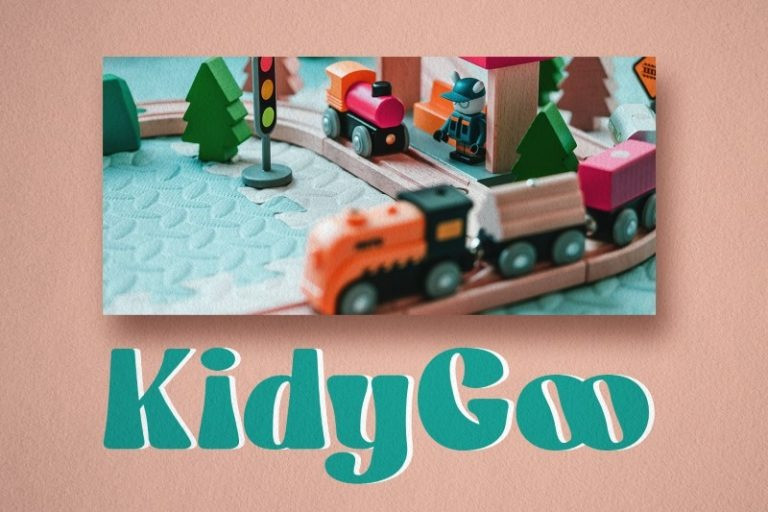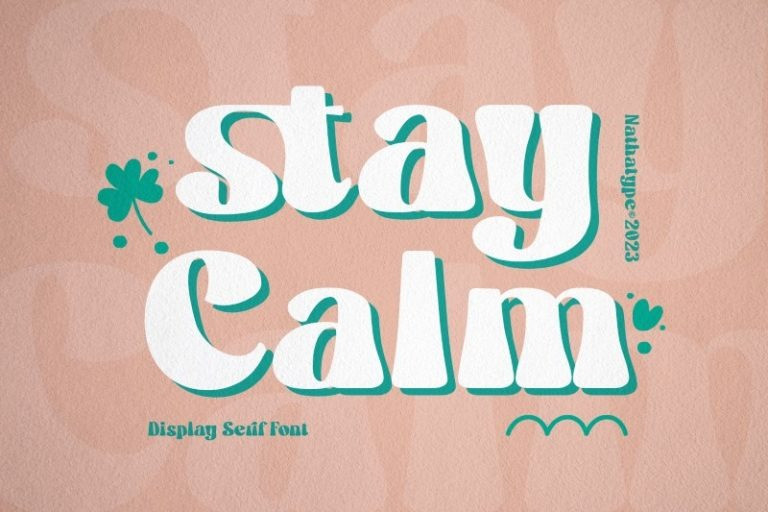
Stay Calm Font
Stay Calm Display Font is an elegant, prominent display serif font to attract everybody’s attention. It has bigger and thicker font proportions than the other ordinary serif fonts as its character to ease people to see it in big text sizes. Such unique characters as curvy thin lines and big, protruding dots, make this font suitable to create unique, interesting designs and applicable for bigger text sizes. You may also enjoy the available features here.